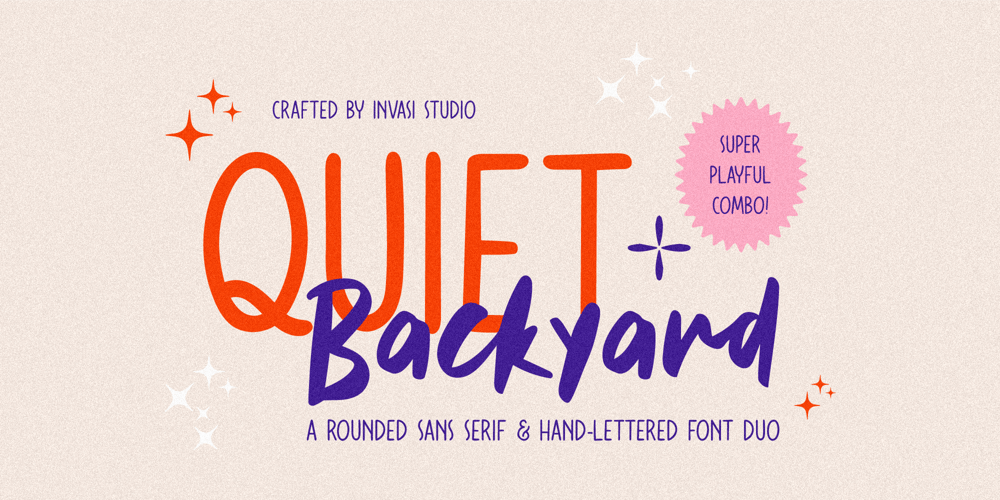
Quiet Backyard Font Family was designed by Gha Arizal and published by Invasi Studio. Quiet Backyard contains 2 styles and family package options. Quiet Backyard is a super playful combo pairing font. Combination with the concept rounded sans serif and hand-lettered font. From Fun, Playful handwriting and casual rounded san serif. This attractive combination with playful vibes special for your Display Design; is guaranteed to add an eye-catching suitable for your logo designs, brand imagery, quotes, product packaging, merchandise & social media posts.?Features: Alternates Punctuation Ligature Multi-language